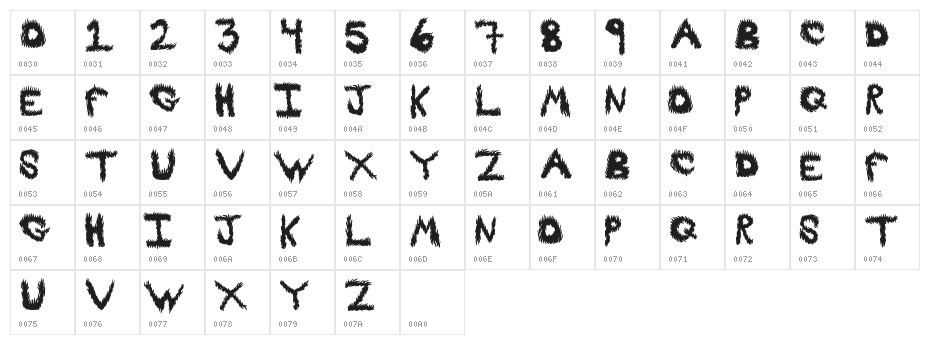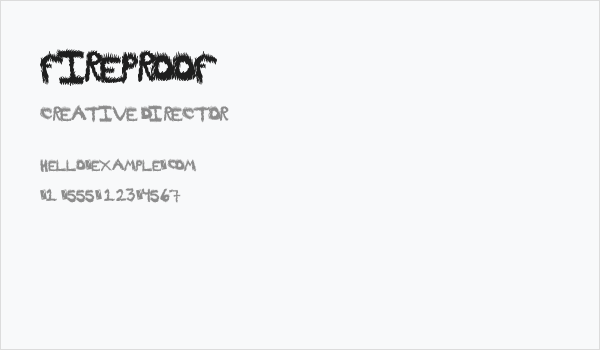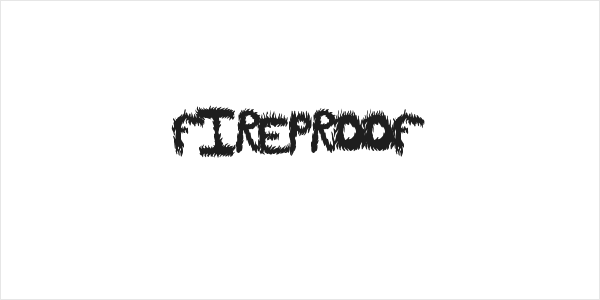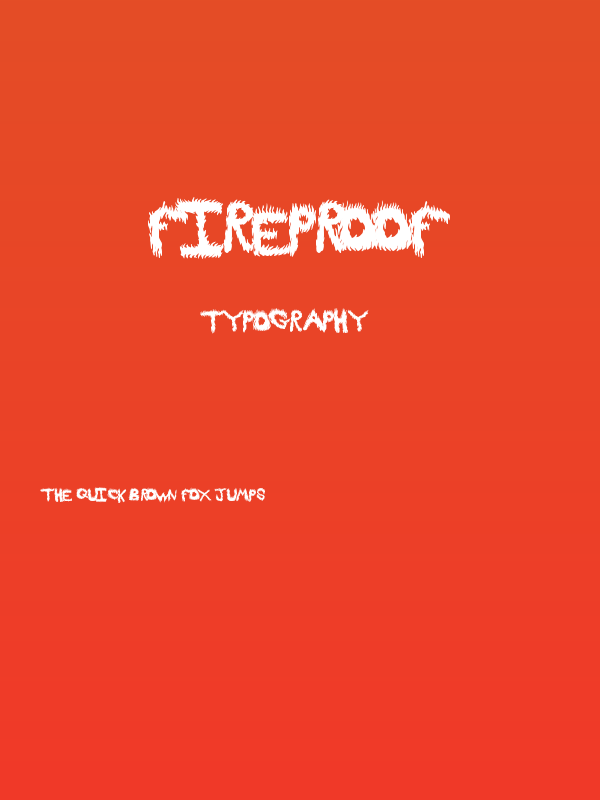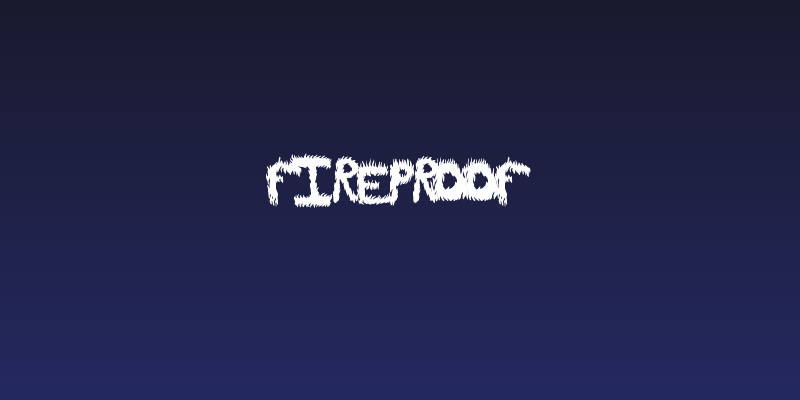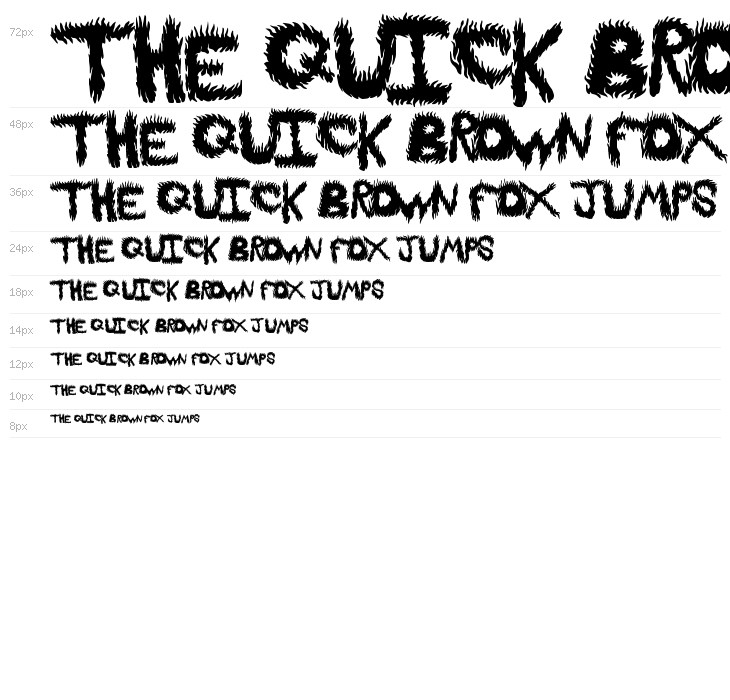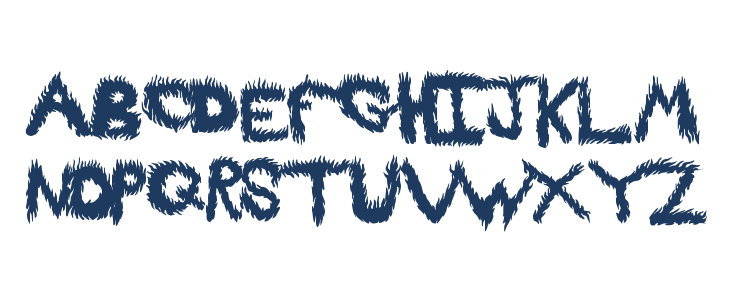
FireProof Font
FireProof Description
This font features a dynamic and fiery design, with each character appearing as if engulfed in flames. The jagged edges and irregular shapes give it a wild and energetic feel, perfect for grabbing attention. The uppercase and lowercase letters maintain a consistent style, with numbers and special characters following suit. The bold strokes and high contrast between the thick and thin parts of the characters enhance its dramatic appearance. This font is ideal for projects that require a bold statement or a sense of urgency.
| Use Case | Headlines, Posters, Logos |
| Proposed Projects | Ideal for horror-themed posters, Halloween invitations, video game titles, and any design needing a fiery, intense look. |